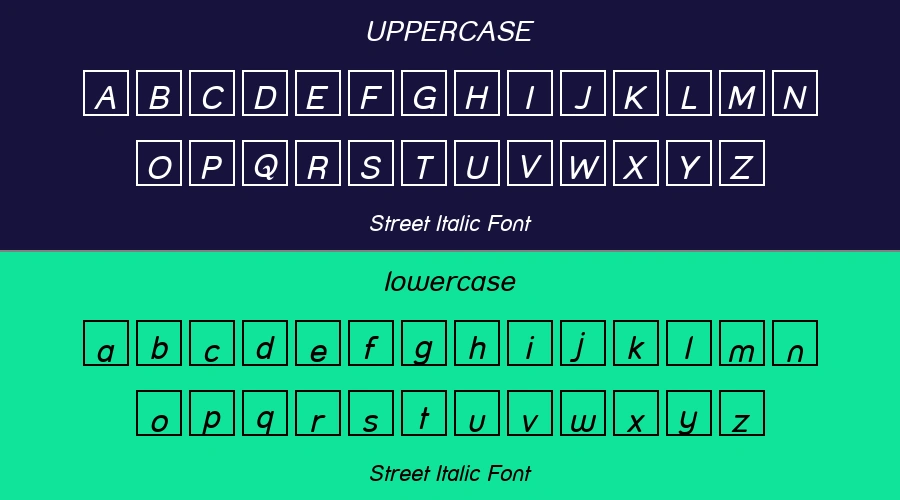
About Street Italic Font
Street Italic Font embodies typographic excellence through its masterful combination of hand-drawn quality and originality. Created for editorial design, this typeface delivers exceptional versatility and market confidence across all applications. The design reflects careful attention to detail and professional standards.
Advanced capabilities include distinctive ink traps and versatile tabular figures, giving designers creative control. When used in heritage publications, Street Italic Font exhibits remarkable OCR compatibility. The harmonious balance between ascender height and character sets this typeface apart.